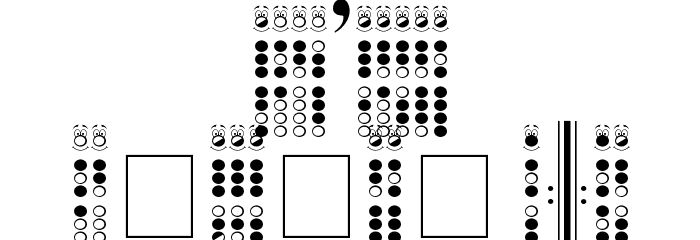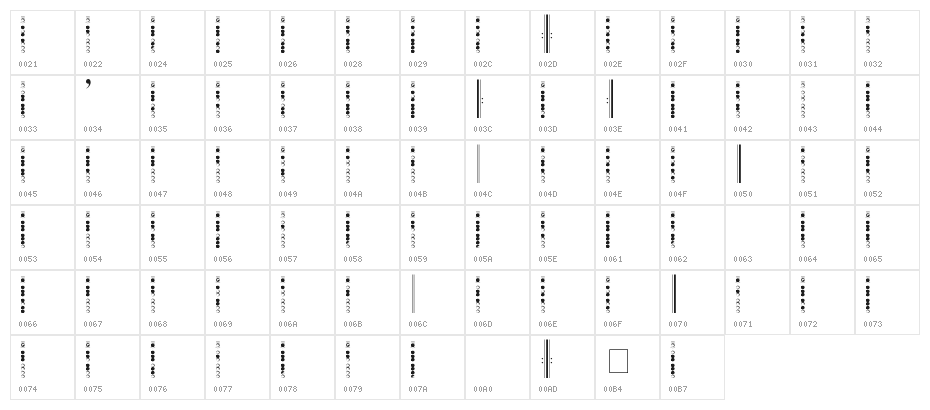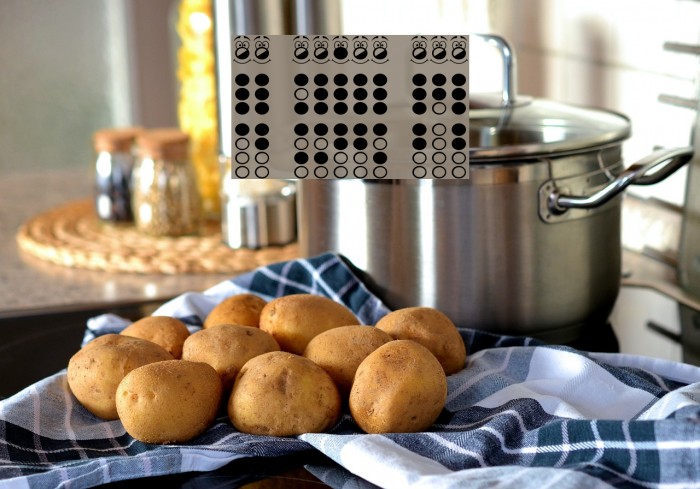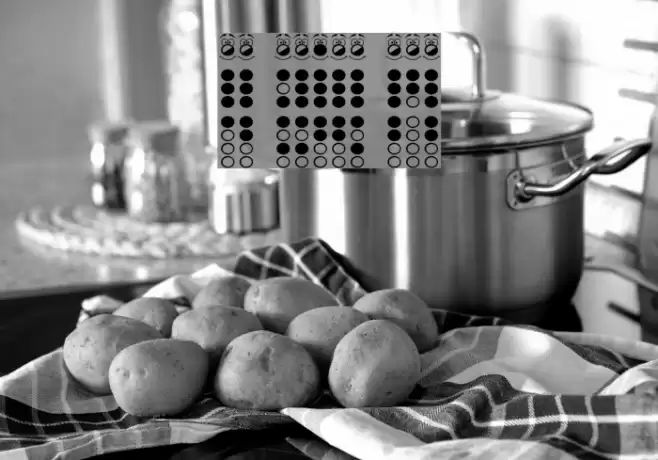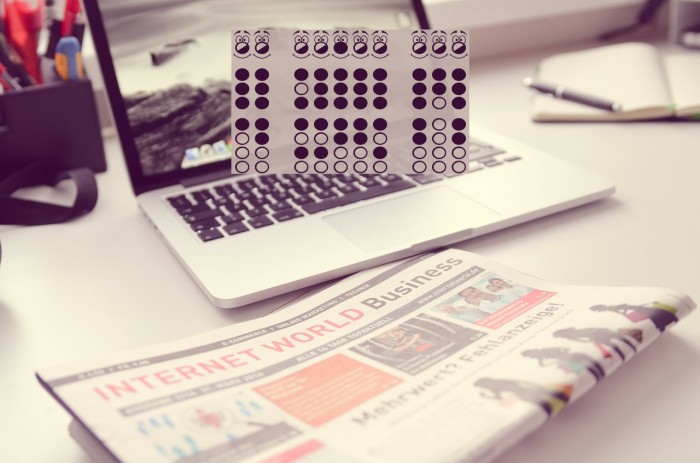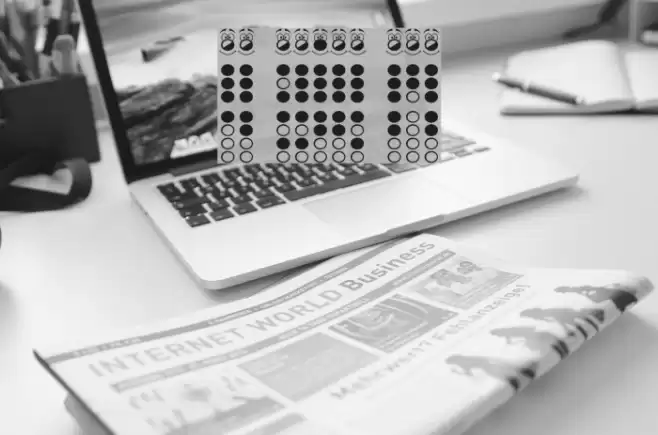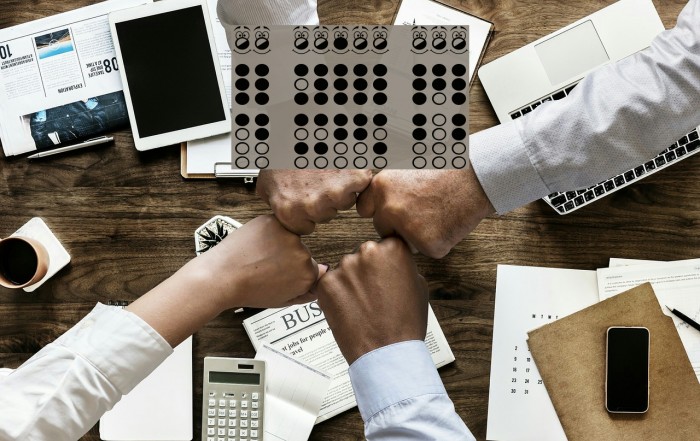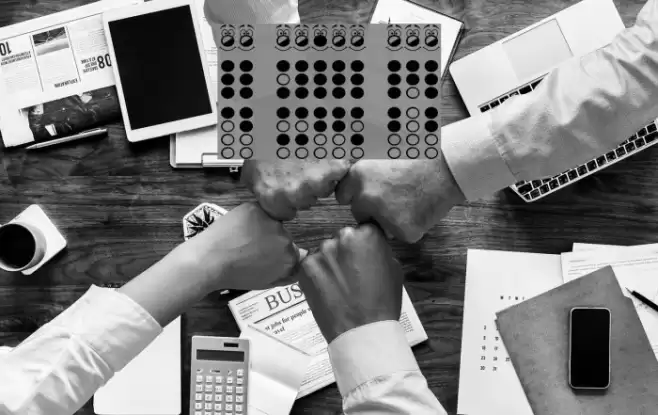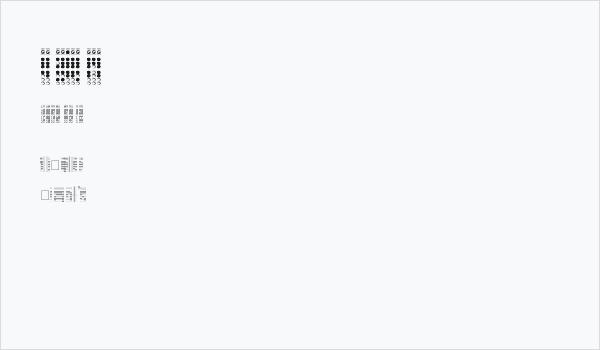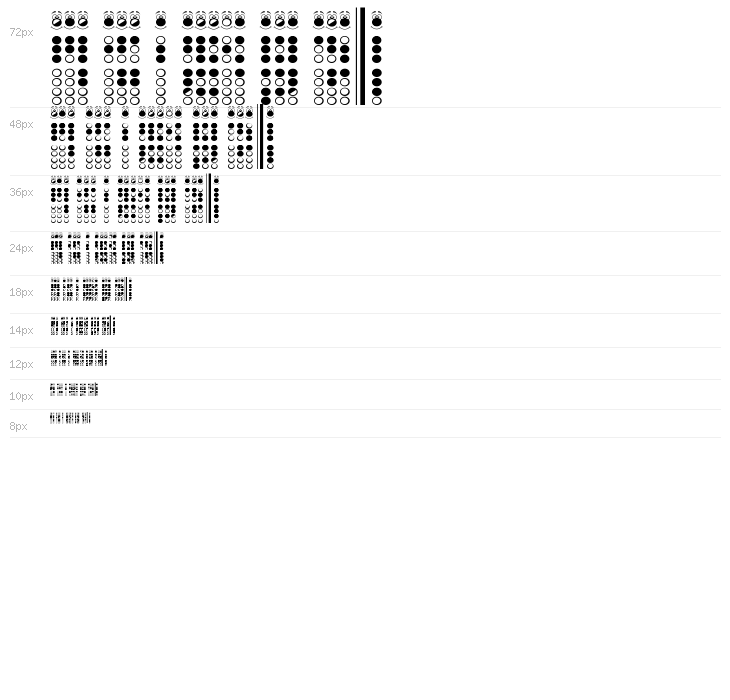
Recorder Eye Font
A playful, decorative font composed of cartoonish eyes and bold, filled circles forming each character, giving a whimsical and quirky appearance. The glyphs are monospaced and geometric, with consistent stroke thickness and minimal variation in line weight.
| Overall Style | Decorative, Playful, Whimsical |
| Use Case | Logos, Headlines, Posters, ChildrenΓ’β¬β’s materials |
| Proposed Projects | ChildrenΓ’β¬β’s books, playful branding, posters, educational materials, party invitations. |